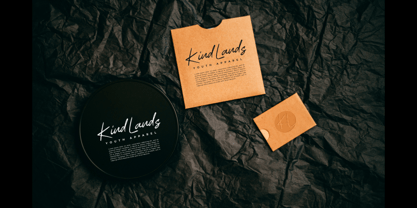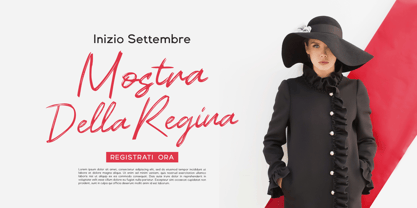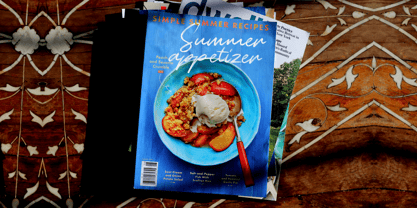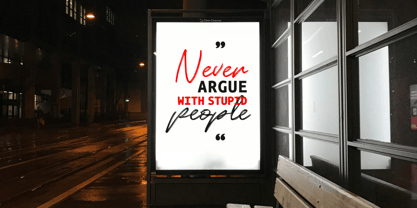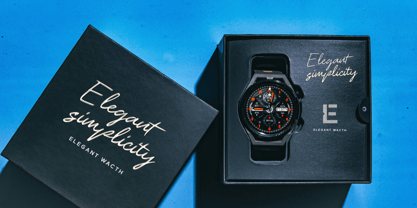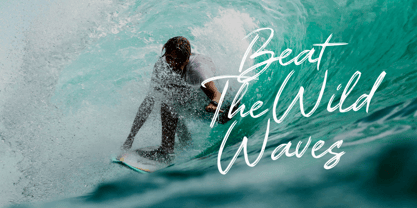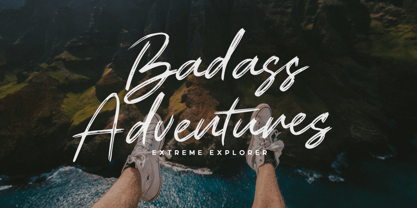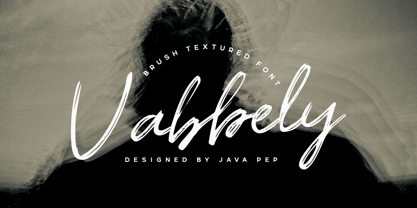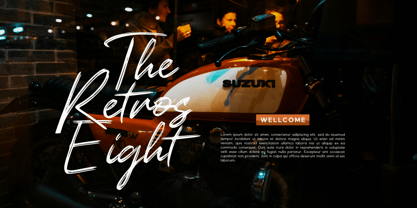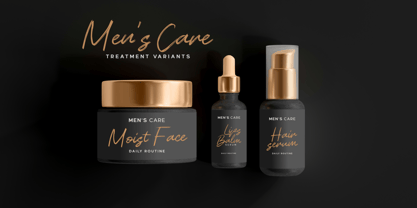
Vabbely
by Java Pep
The Vabbely Font Family was designed by Java Pep and published by Java Pep. Vabbely contains 1 styles. More about this family
Introducing the Vabbely, a brush-textured typeface font. Vabbely font is suitable for themed projects that convey a sense of boldness, elegance, masculinity, hipster style, etc, and to highlight an informative design. Vabbely font is perfect for logotypes, branding, headline text, quotes, signatures, etc. This font comes with multilingual support, that have more than 25 languages